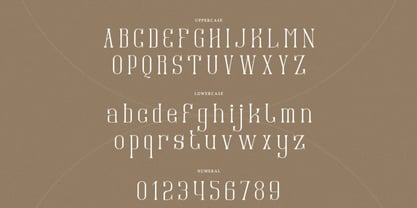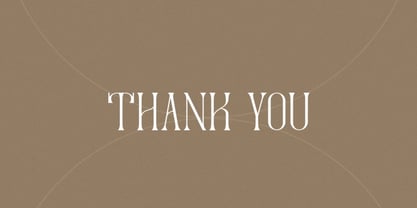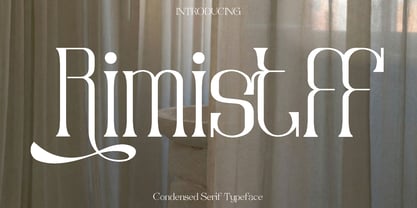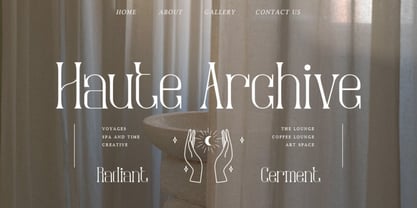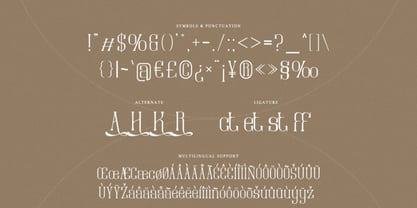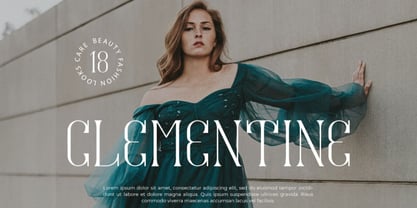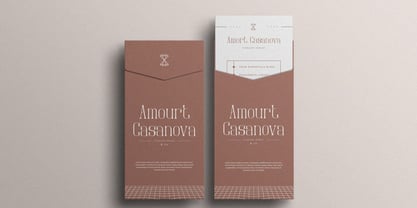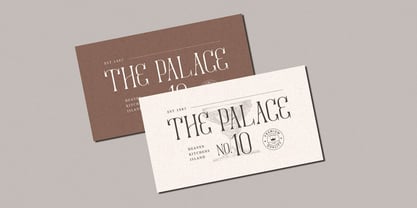
Rimistff
by Only Fonts
The Rimistff Font Family was designed by Olivia Love and published by Only Fonts. Rimistff contains 1 styles. More about this family
Rimistff – Condensed Luxury Serif Font Rimistff is a refined condensed serif font that brings elegance, sophistication, and a modern touch to your creative projects. Inspired by the harmony of classic serif traditions and contemporary design, its narrow and graceful letterforms create a polished, high-end aesthetic. Each character is meticulously crafted to convey luxury and style, making Rimistff a versatile and timeless choice for designers who value both beauty and readability. This font excels in luxury branding, high fashion identity, editorial layouts, boutique packaging, and premium product design. It is perfect for women’s magazines, cosmetic brands, art galleries, museum displays, stationery, invitations, and book covers. Rimistff also adapts beautifully to modern advertising, blog designs, home decor visuals, and special event promotions, ensuring your content stands out with sophistication and impact. With its condensed structure, Rimistff allows for elegant headlines and impactful typographic compositions while maximizing space without sacrificing style. Its seamless blend of classic and modern elements makes it ideal for designers aiming to convey refinement, exclusivity, and contemporary charm. Rimistff Condensed Serif Font Features: • Uppercase and lowercase letters • Symbols, punctuation, numerals, and ligatures • Alternate characters for added stylistic options • Multilingual support for broad international use Rimistff transforms any project into a statement of luxury and sophistication, making it an essential addition to the toolkit of modern designers.
Designers: Olivia Love
Foundry: Only Fonts